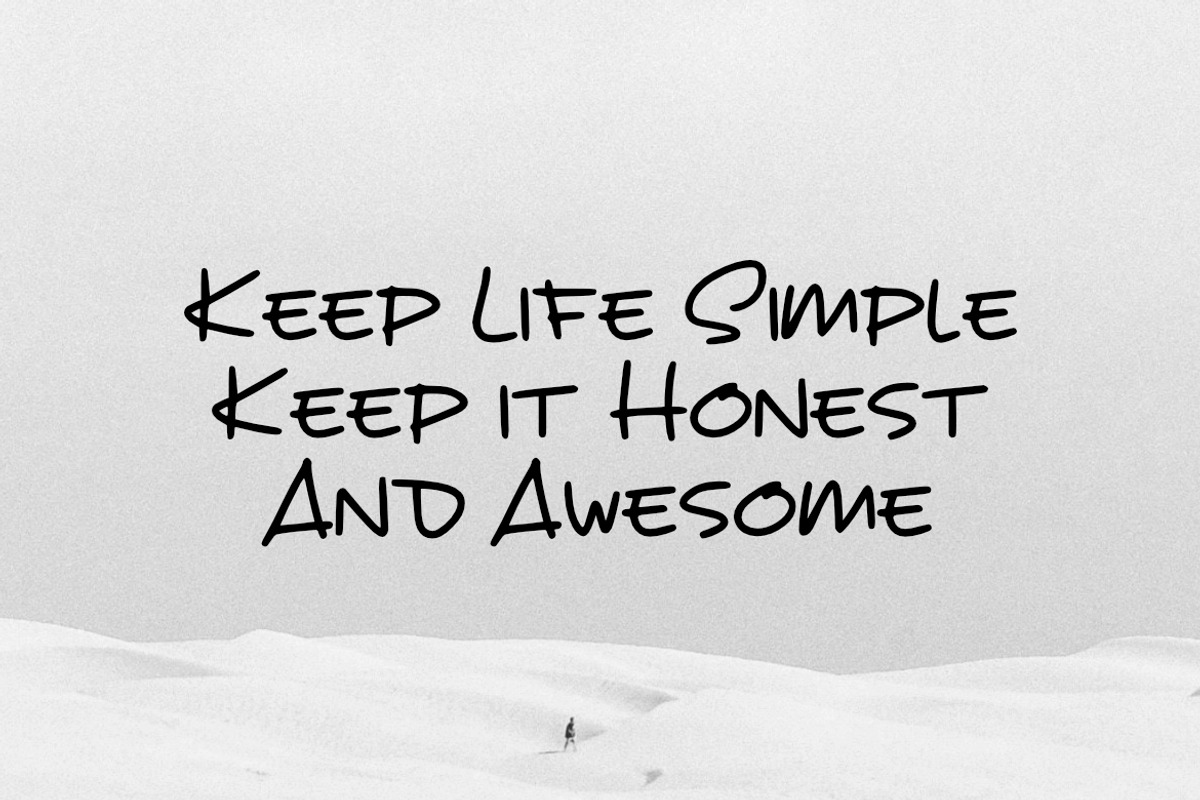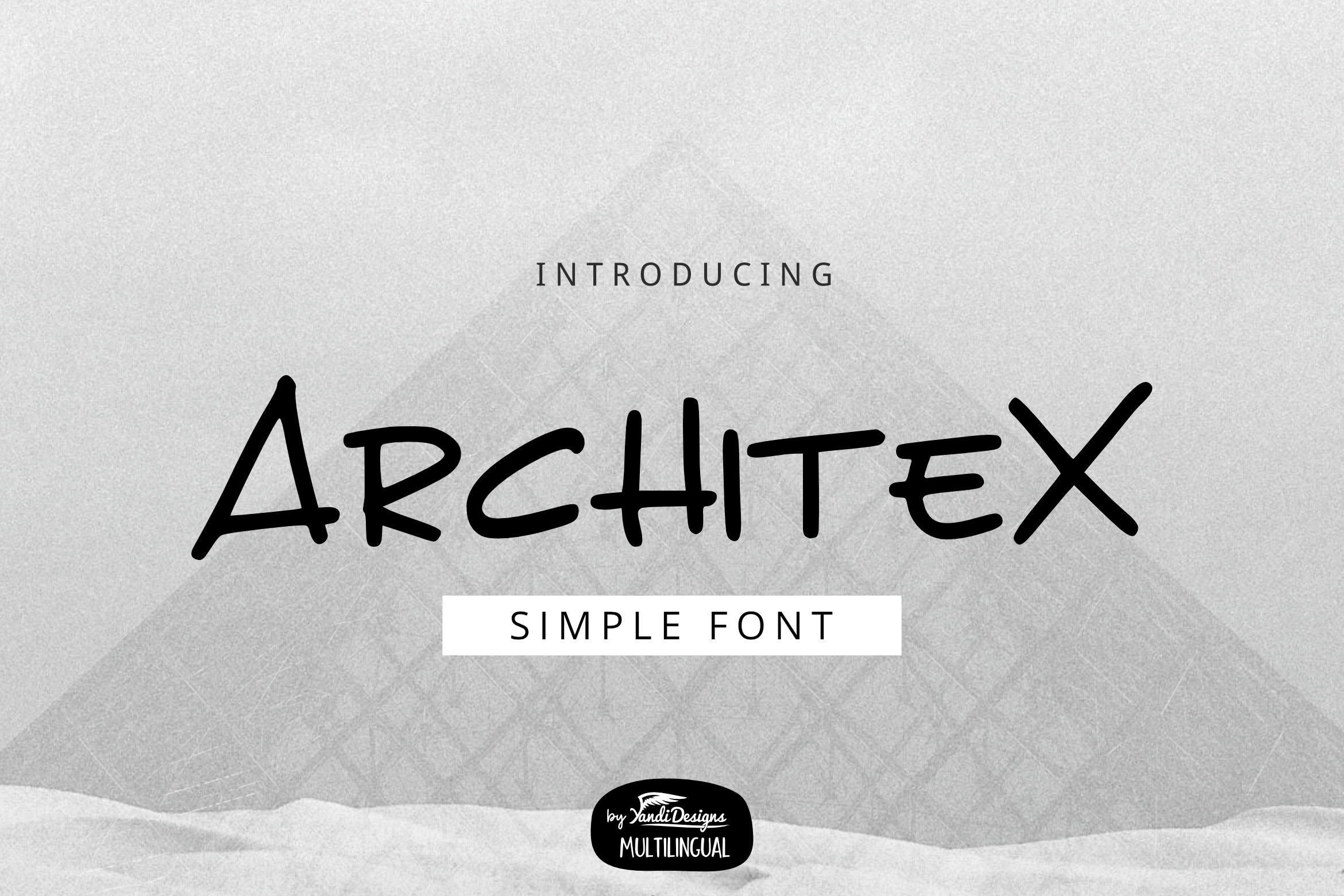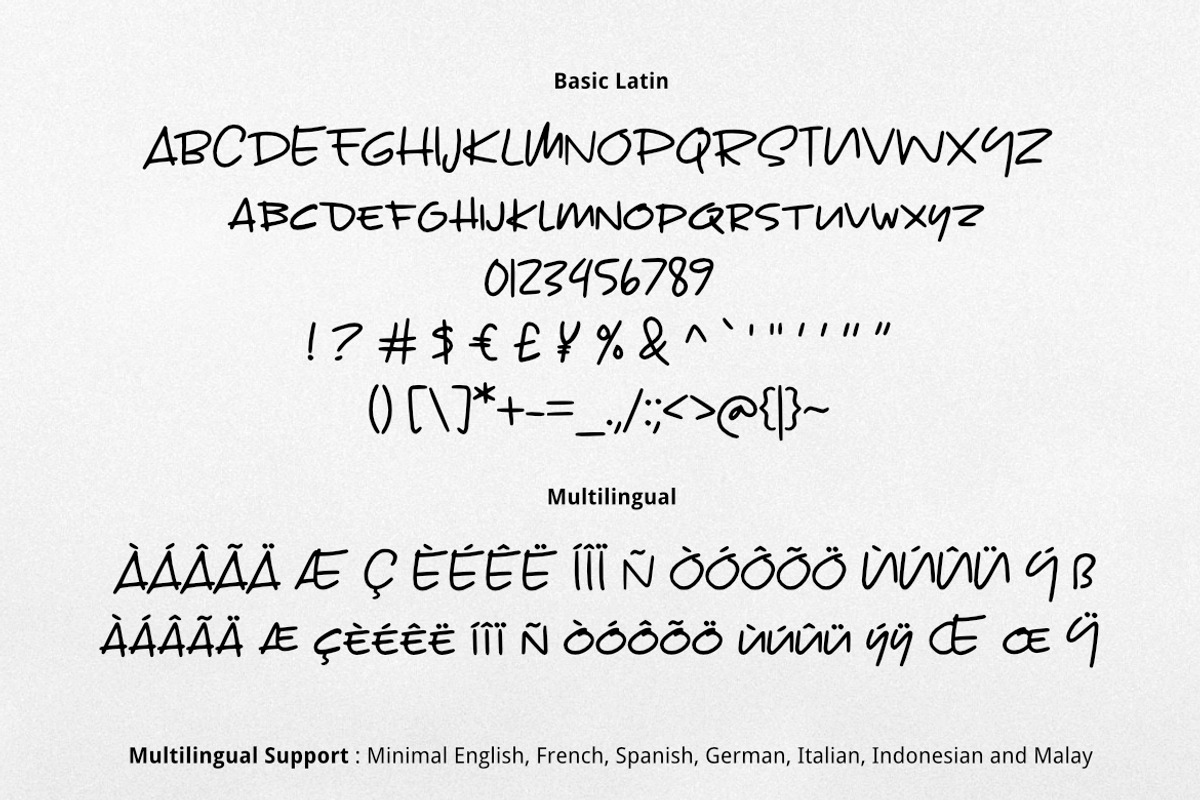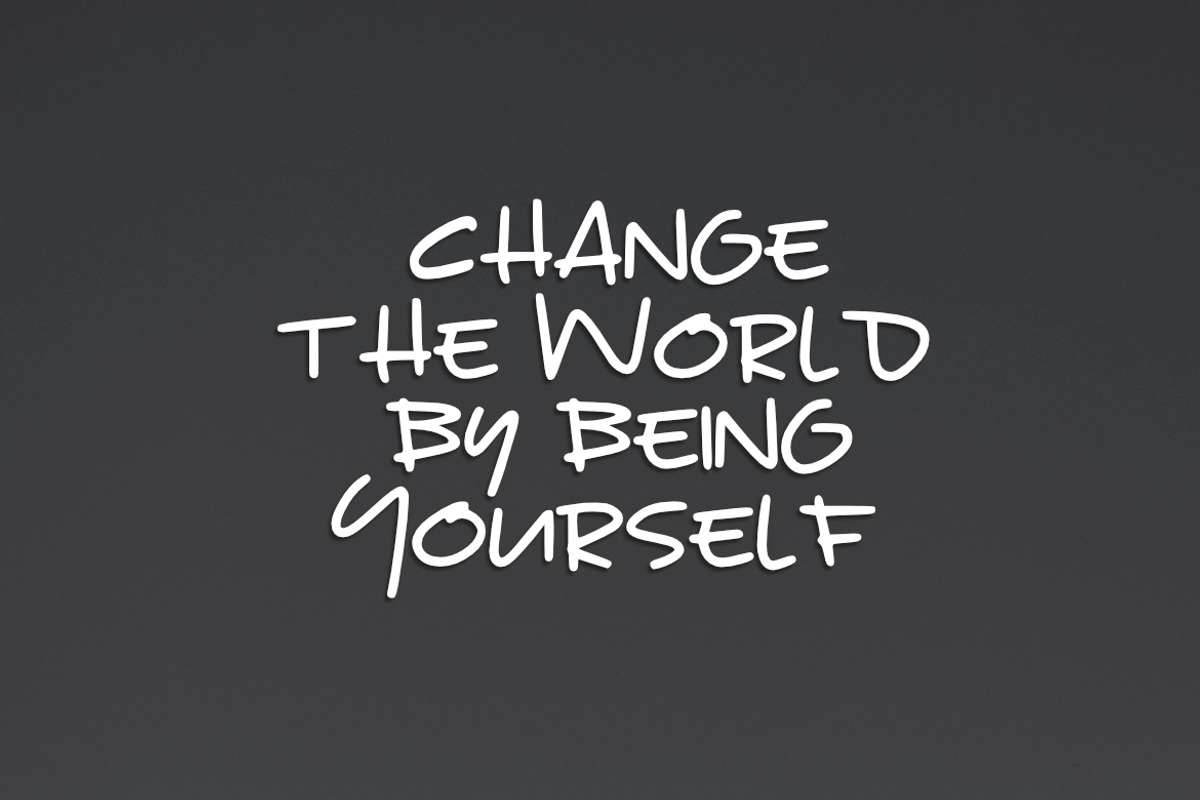
Architex Font
Architex is Architecture simple cute playful multipurpose handmade font, suitable for many project children book, quotes, logo , heading , title etc.